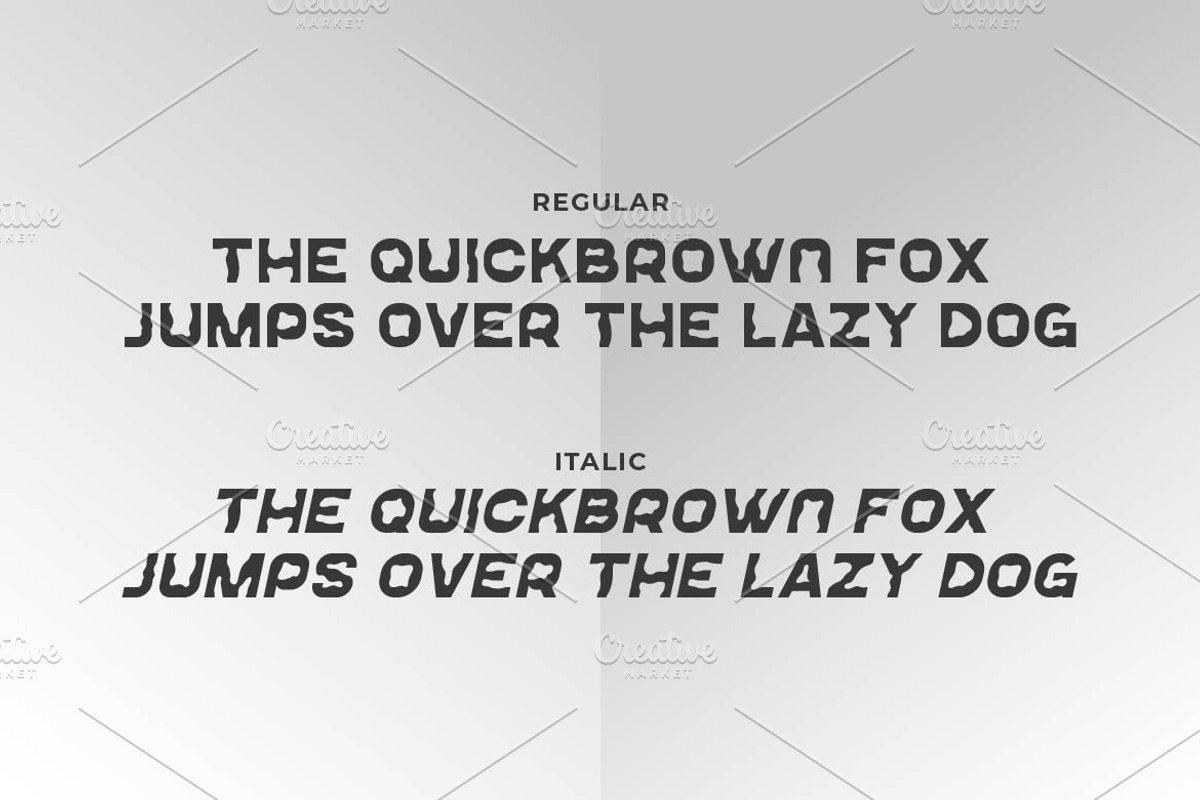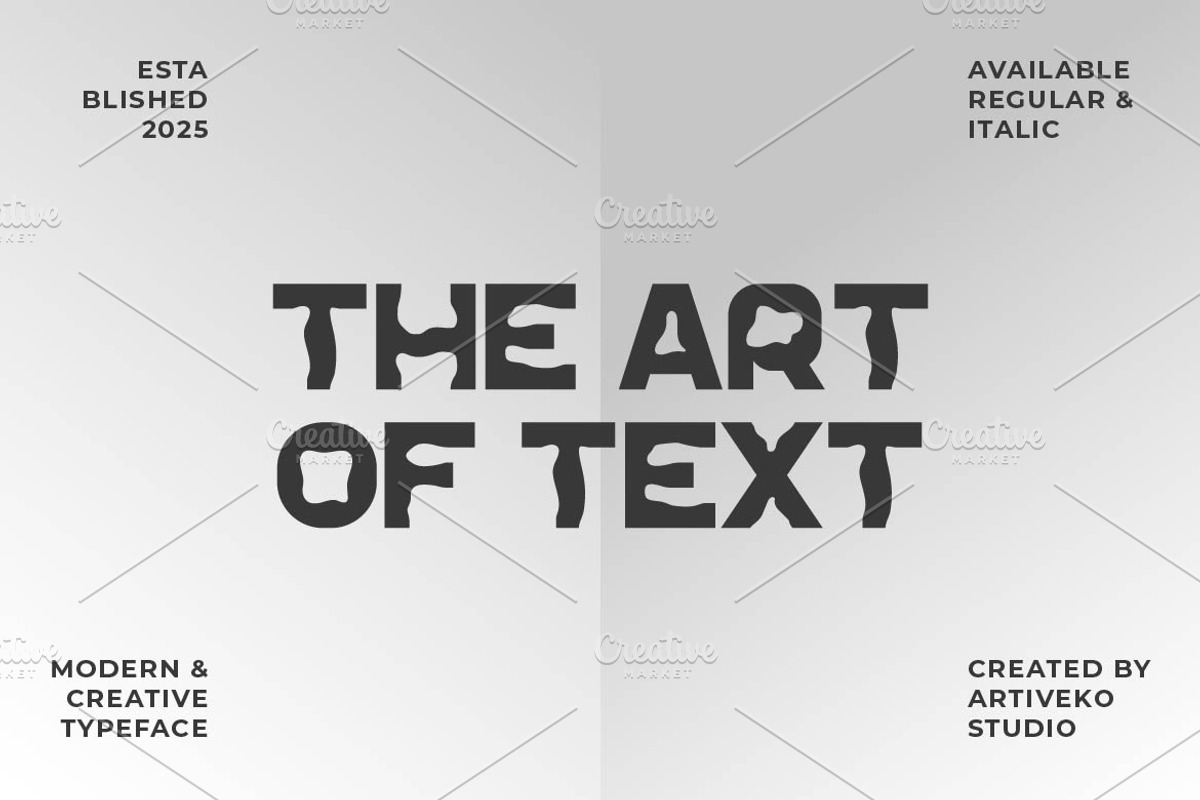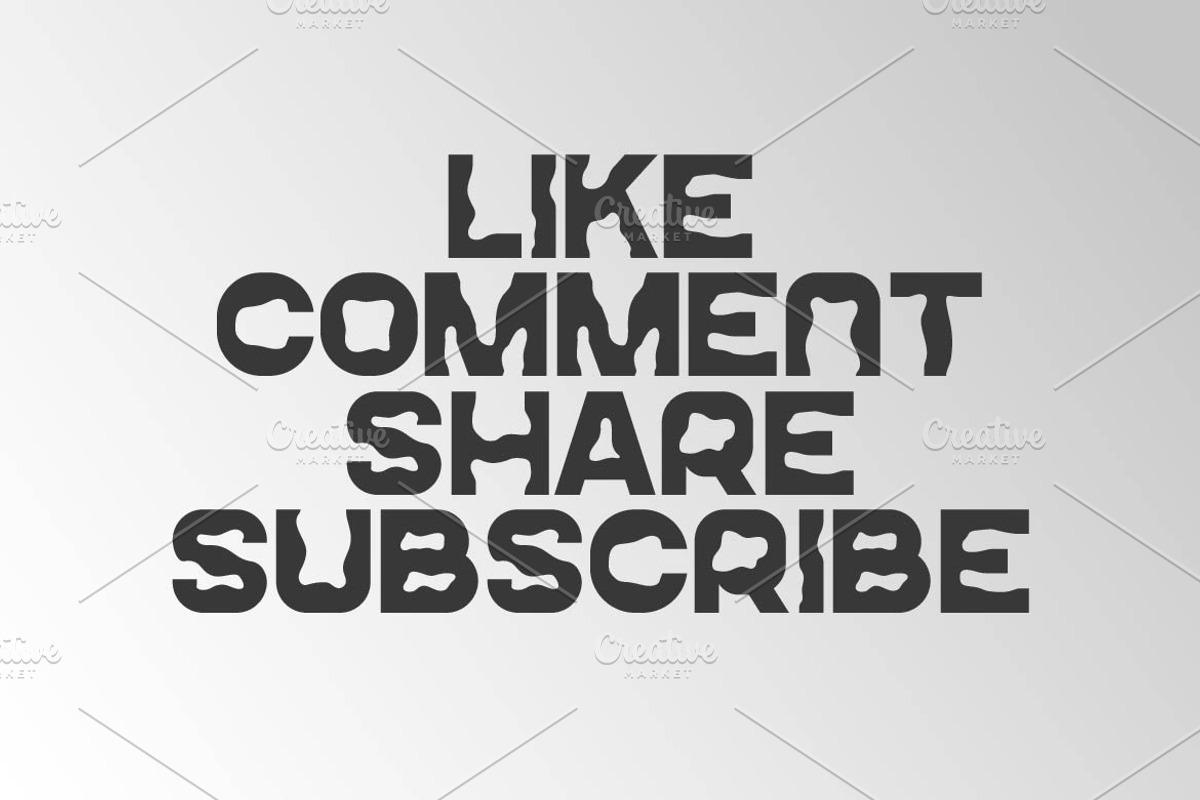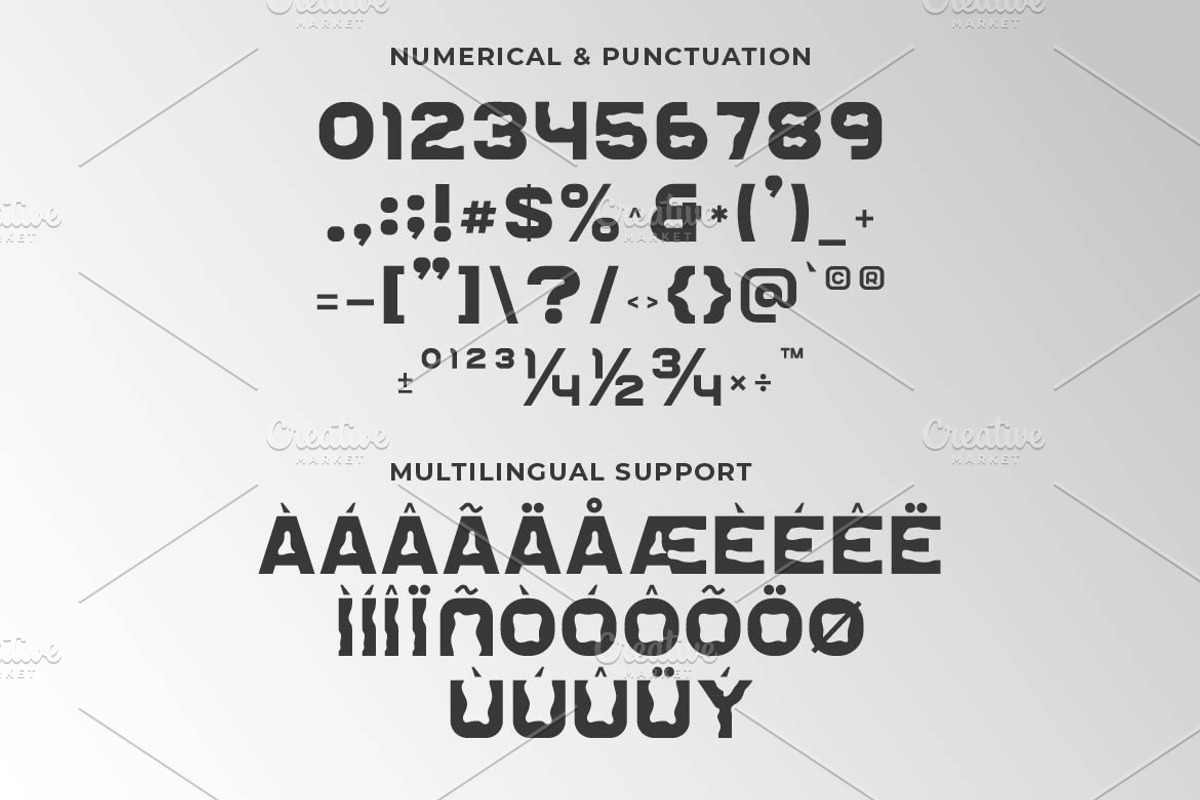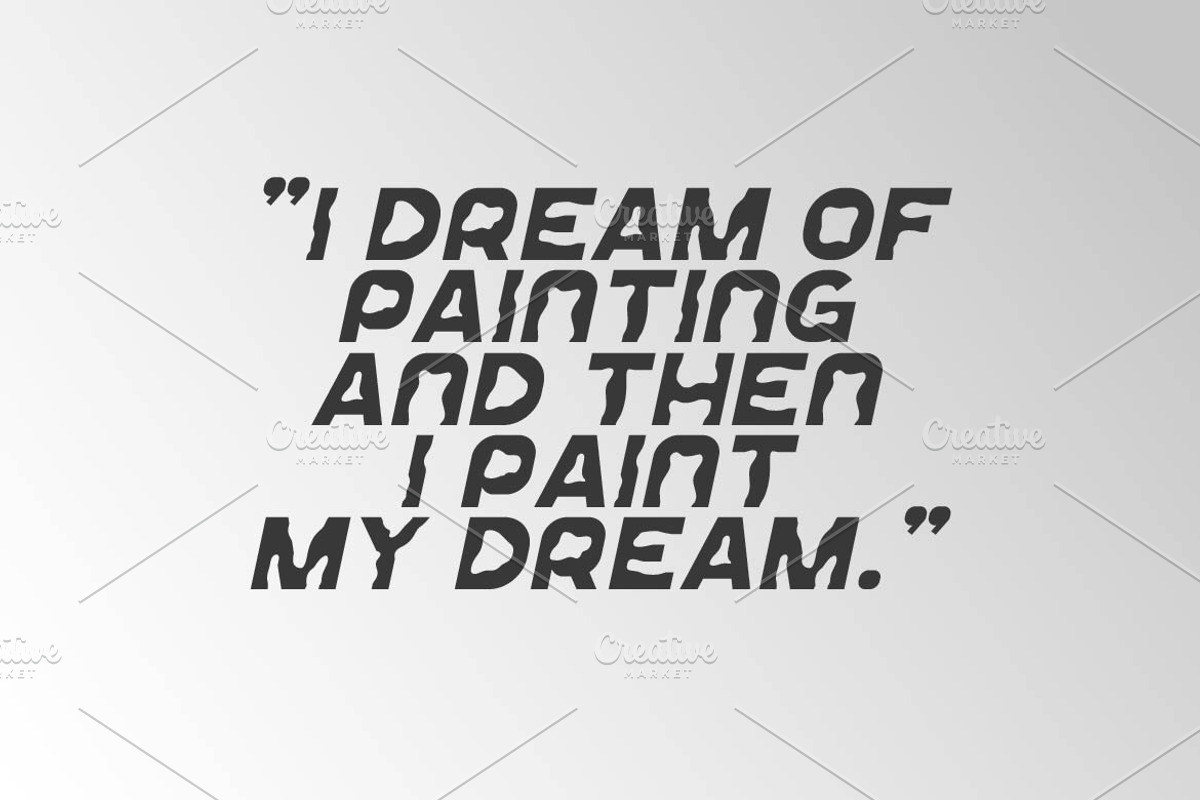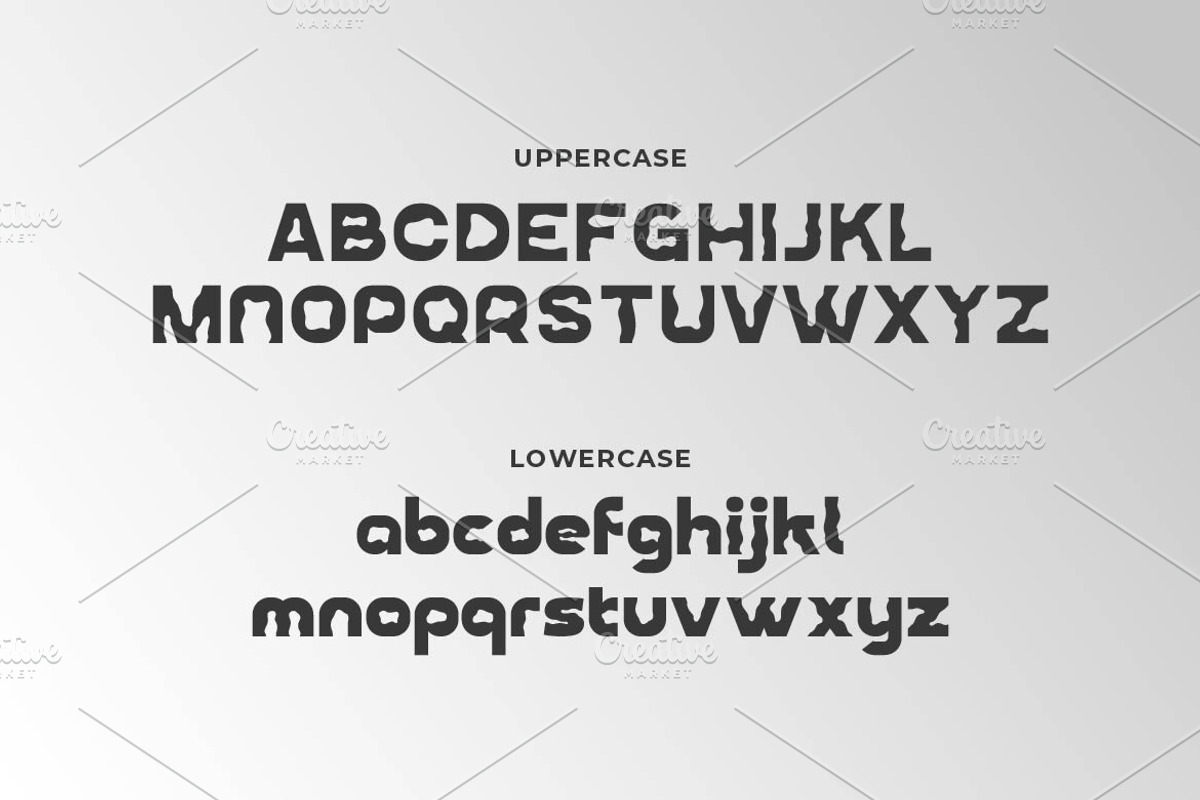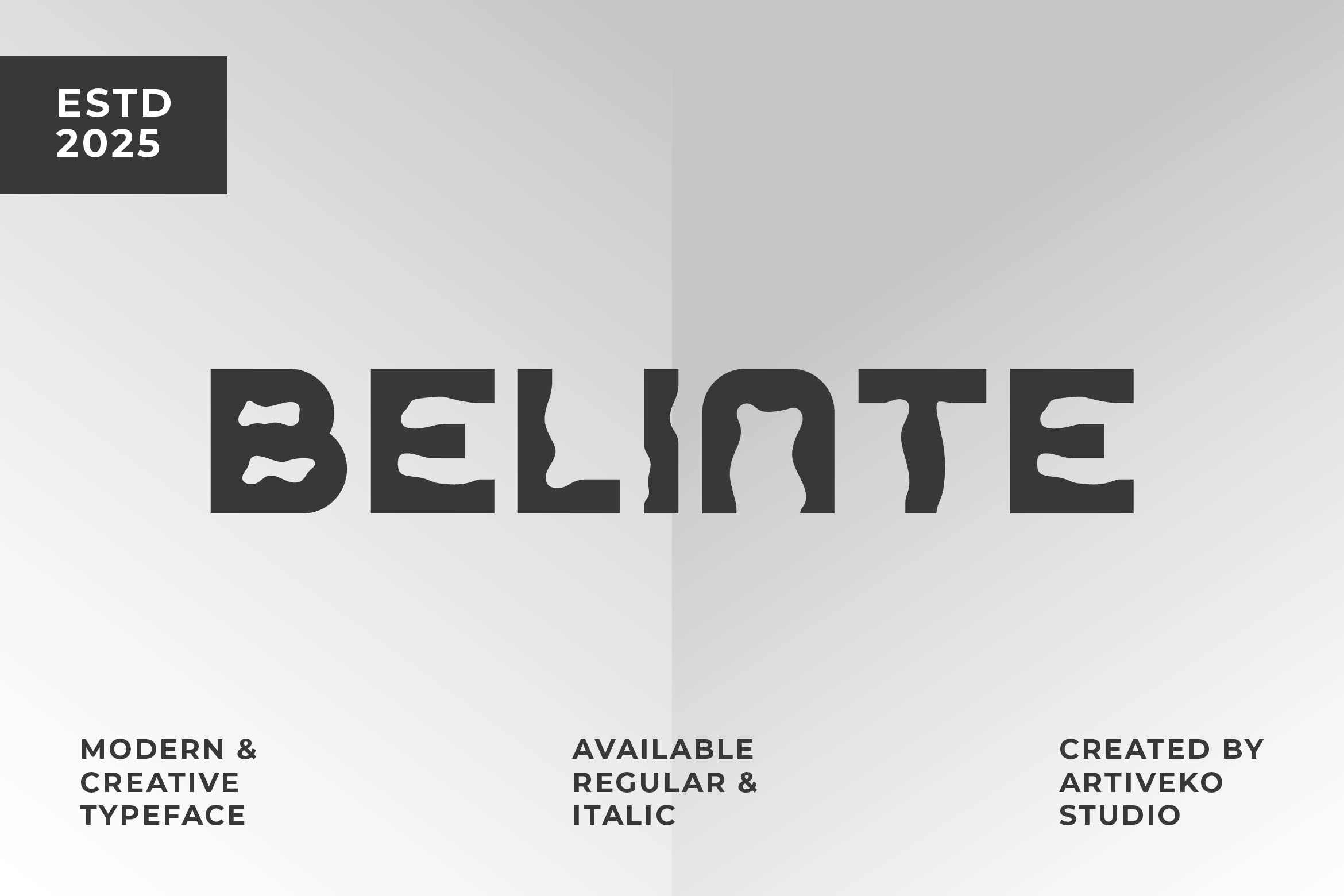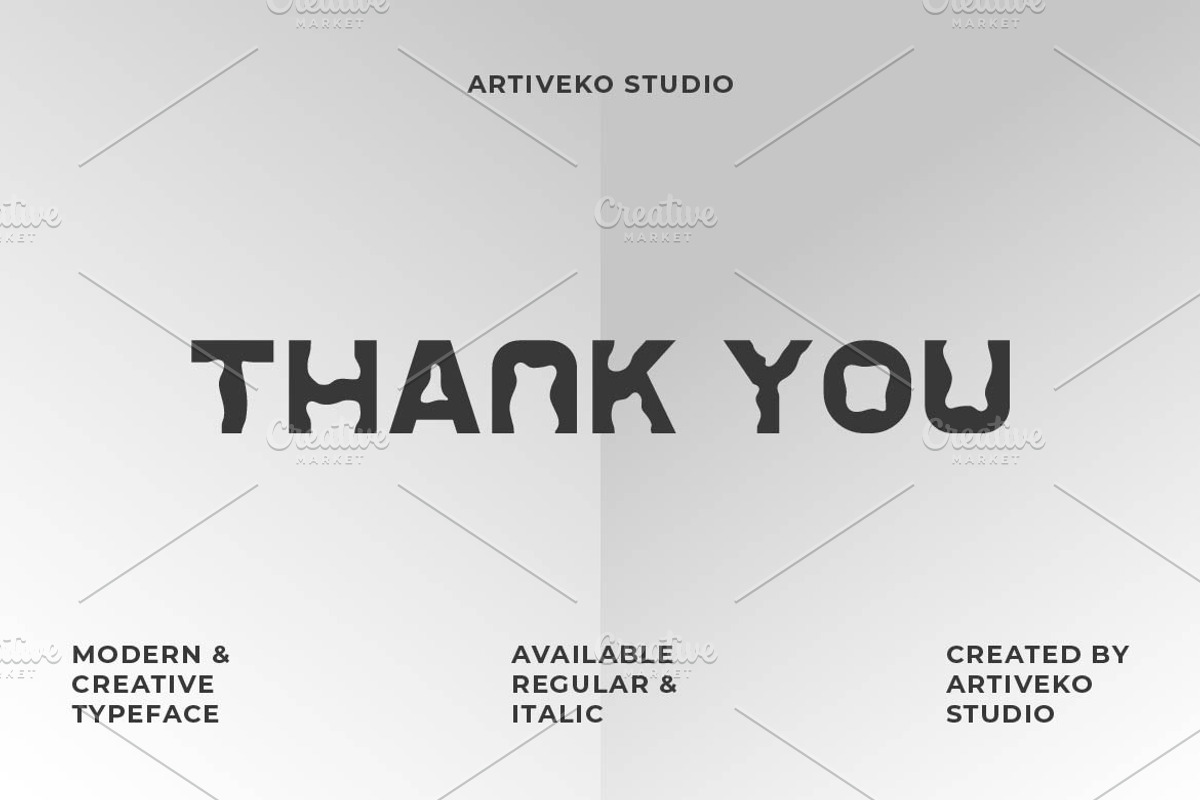
Belinte Unique Sans Font
Belinte is a unique sans serif font that blends minimalism with artistic flair. With its distinct letterforms and clean structure, Belinte offers a modern feel while maintaining personality—making it a perfect choice for branding, logos, websites, and editorial design.